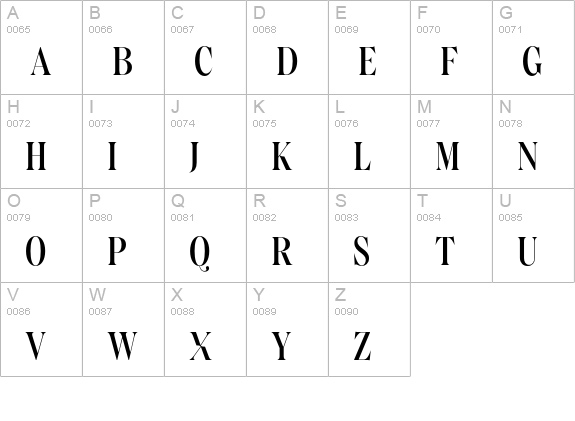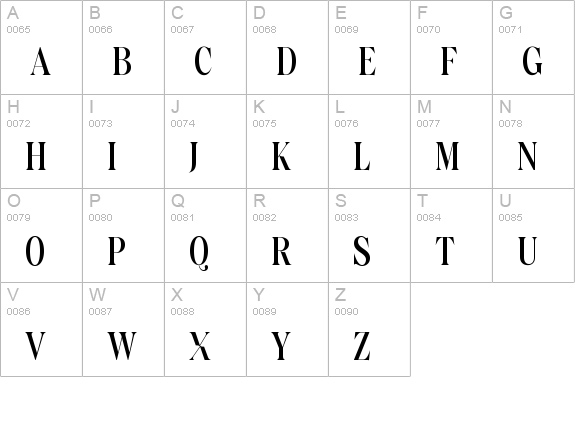
Bolognia Medium is a balanced, medium-weight variant in the Bolognia typeface family \xE2\x80\x94 well suited to sub-headlines, navigation, and balanced editorial work.
Bolognia Medium is a modern and stylish font that exudes elegance and sophistication. With its clean lines and balanced proportions, this versatile typeface is perfect for a wide range of design projects, from branding to editorial layouts. Its medium weight strikes the perfect balance between being both readable and impactful, making it ideal for both headlines and body text.